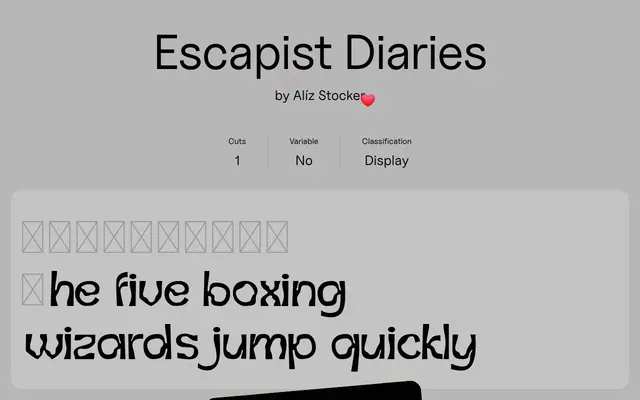
Escapist Diaries
A single-cut display face by Alíz Stocker, offered free for both commercial and personal use.
A display typeface from designer Alíz Stocker, distributed via Uncut as a free download with no variable axis support. Available in one cut, it targets headline and decorative applications rather than extended reading. Licensing is unspecified beyond a general free-use declaration, so confirmation with the designer is advised before commercial deployment.
Listed explicitly as Display by the foundry; a single-cut decorative face suited to headline and expressive typesetting rather than body text.